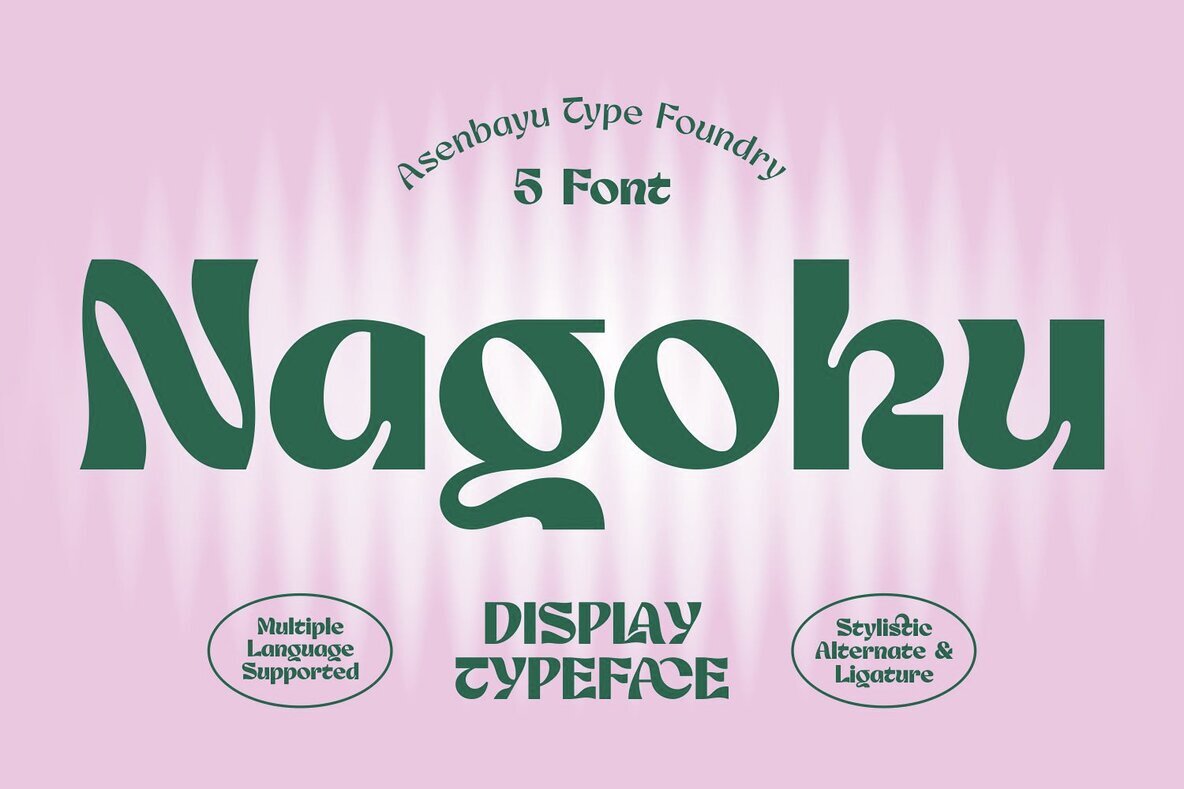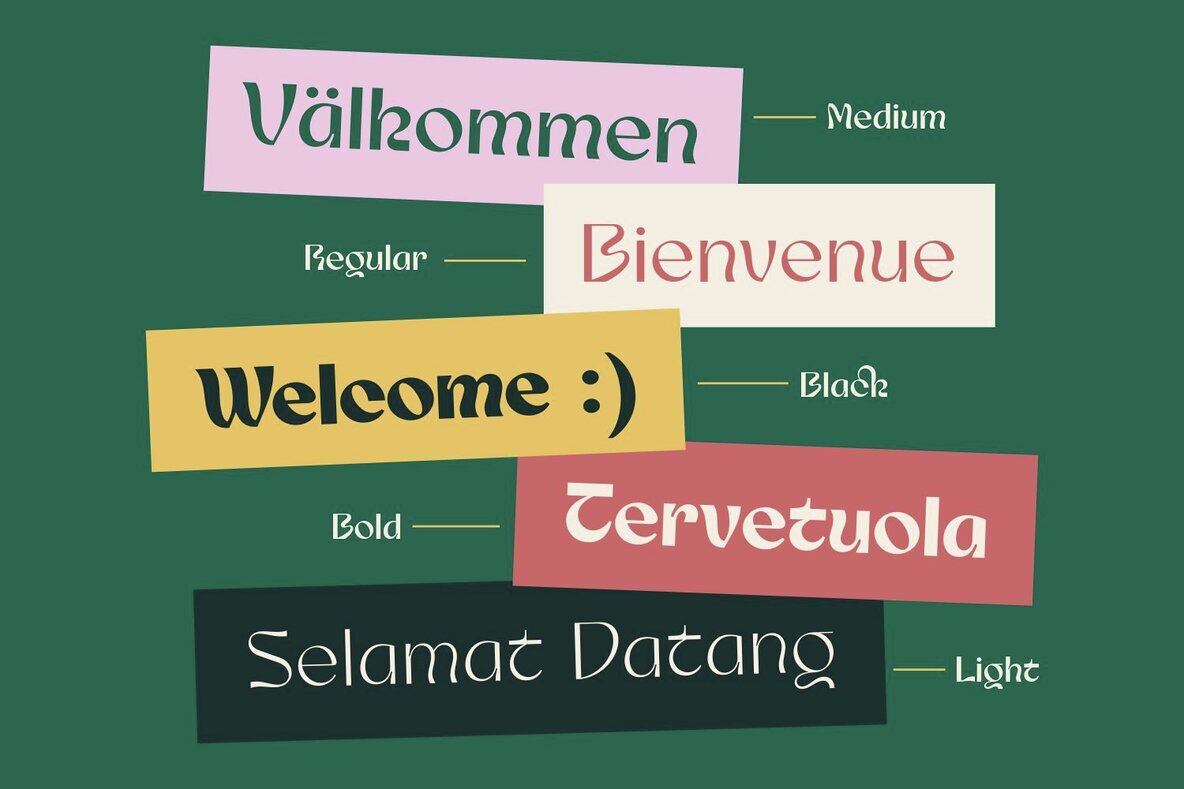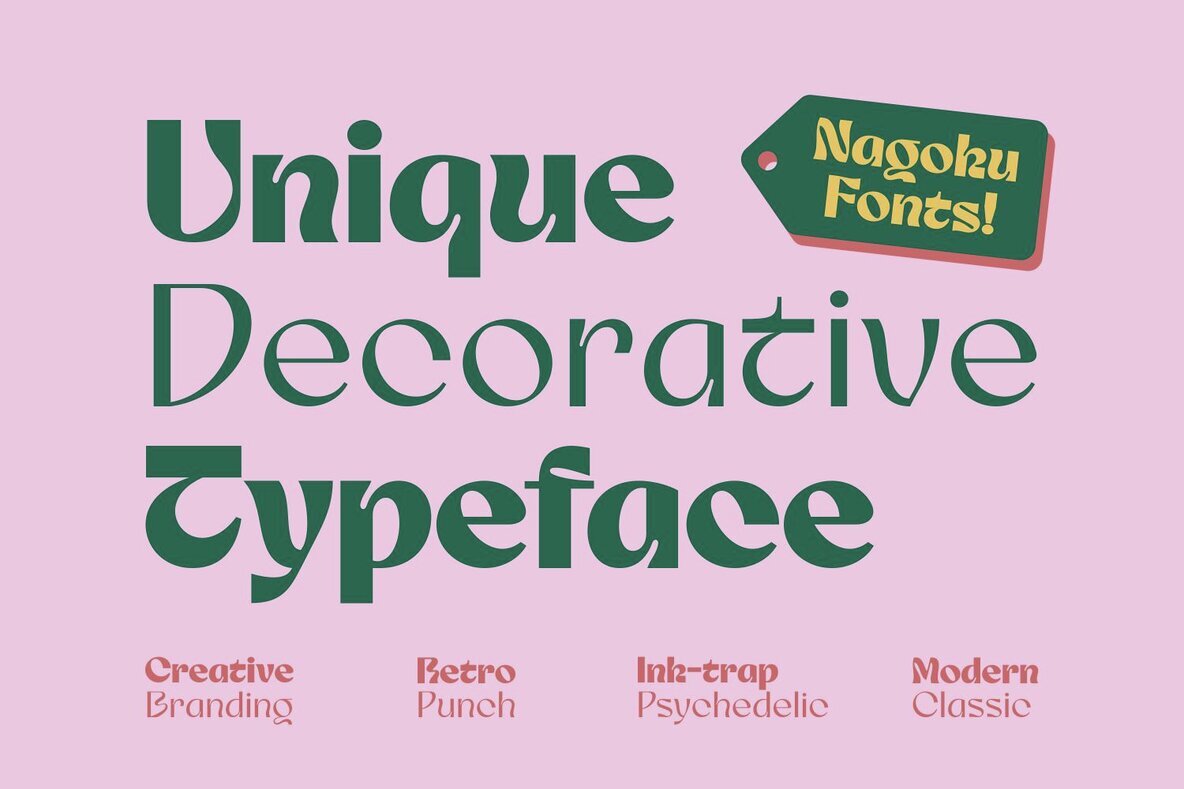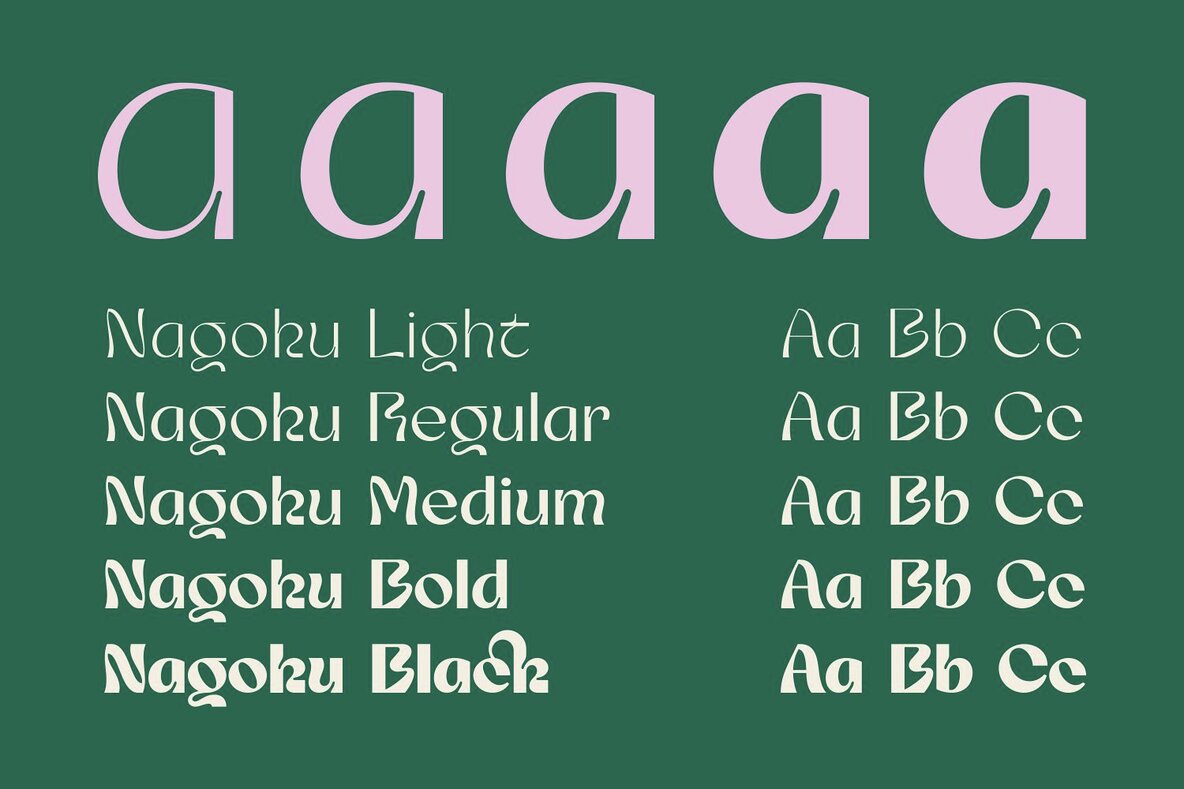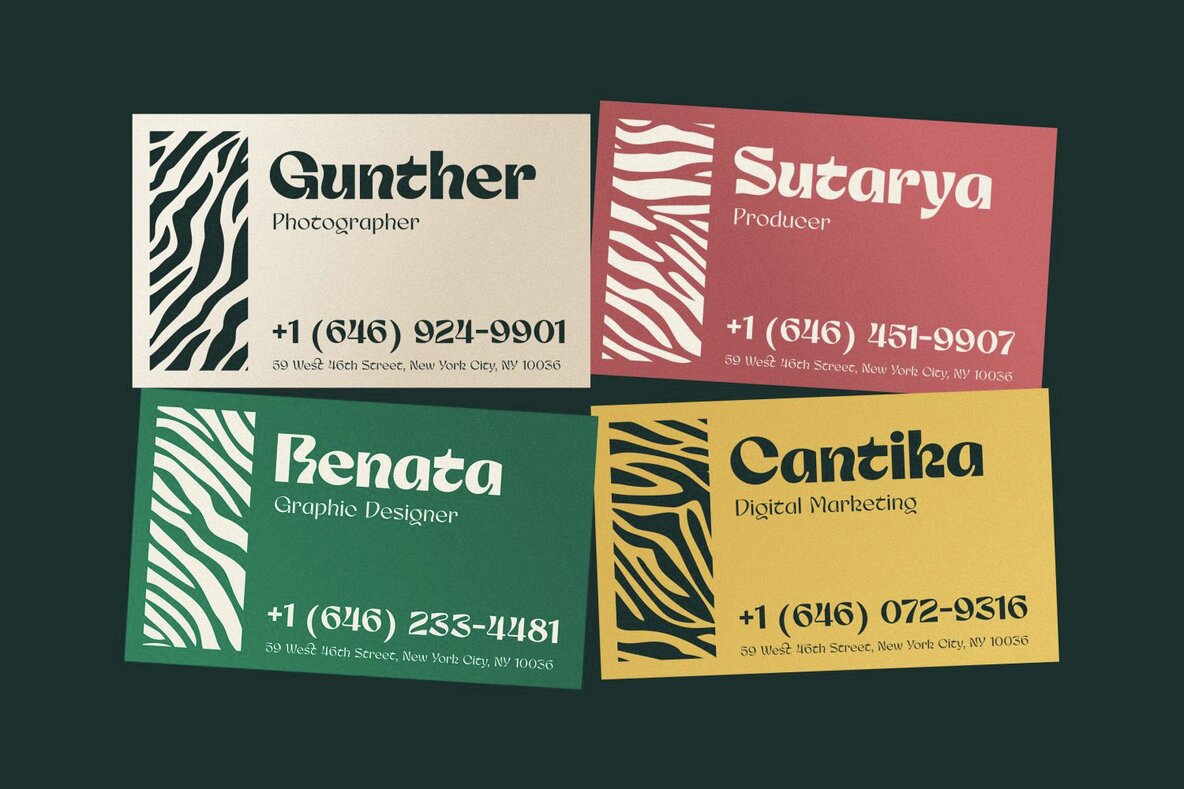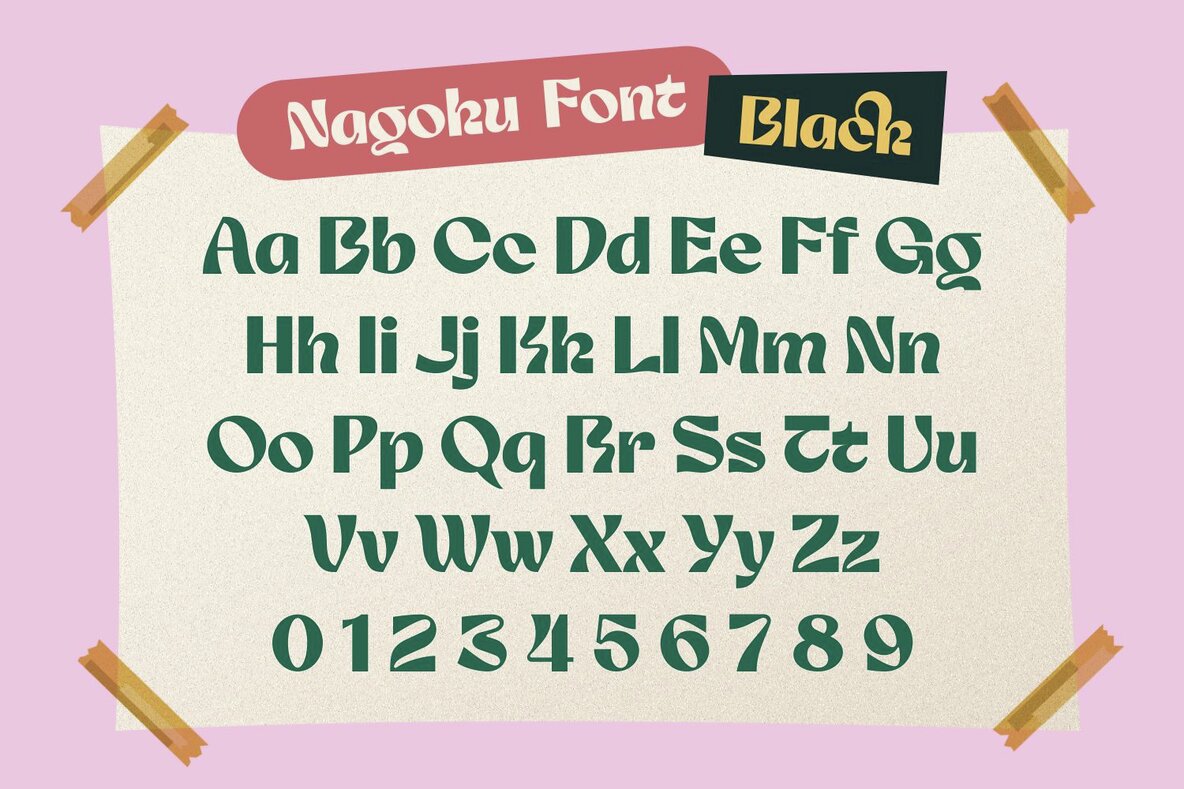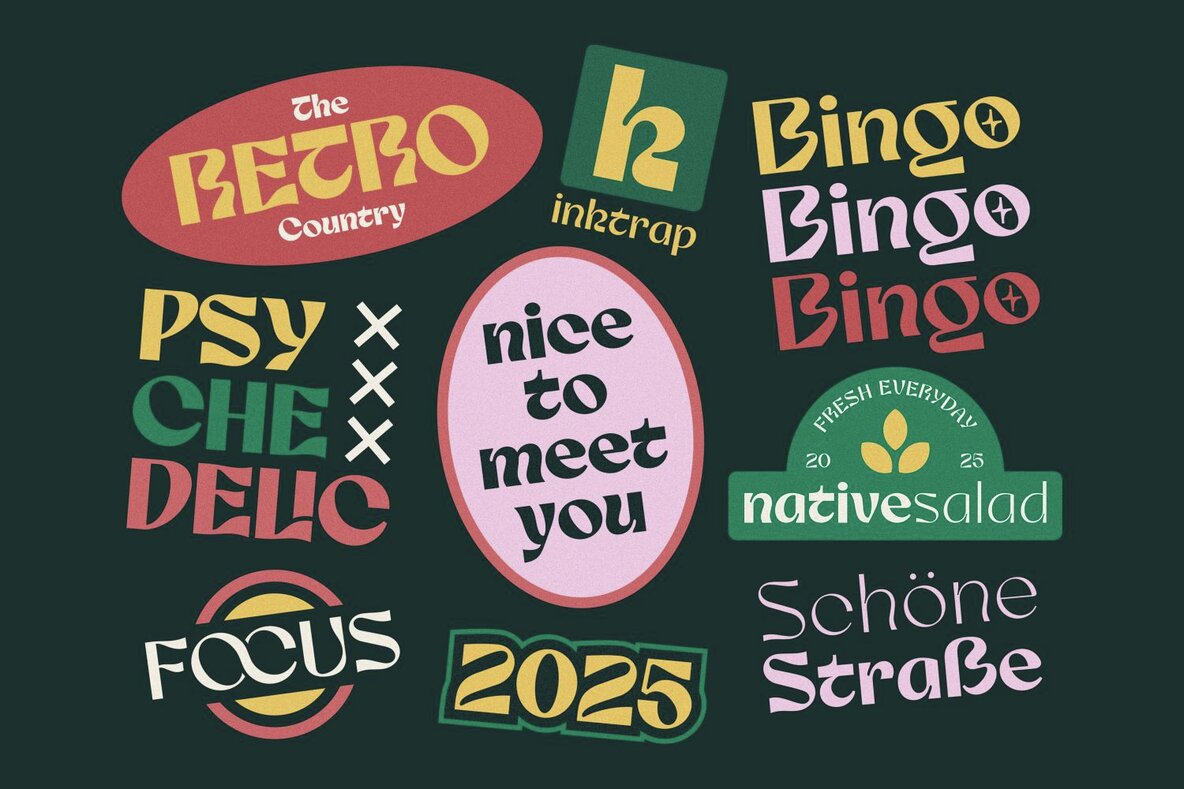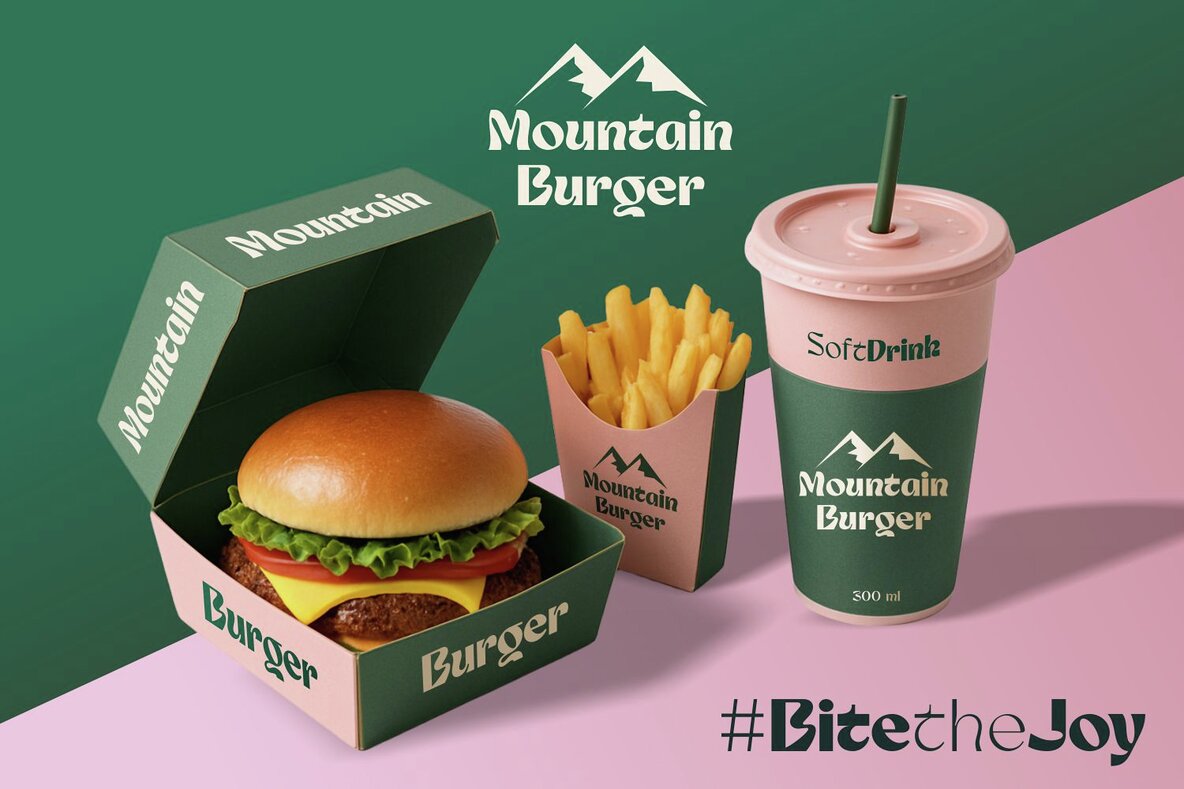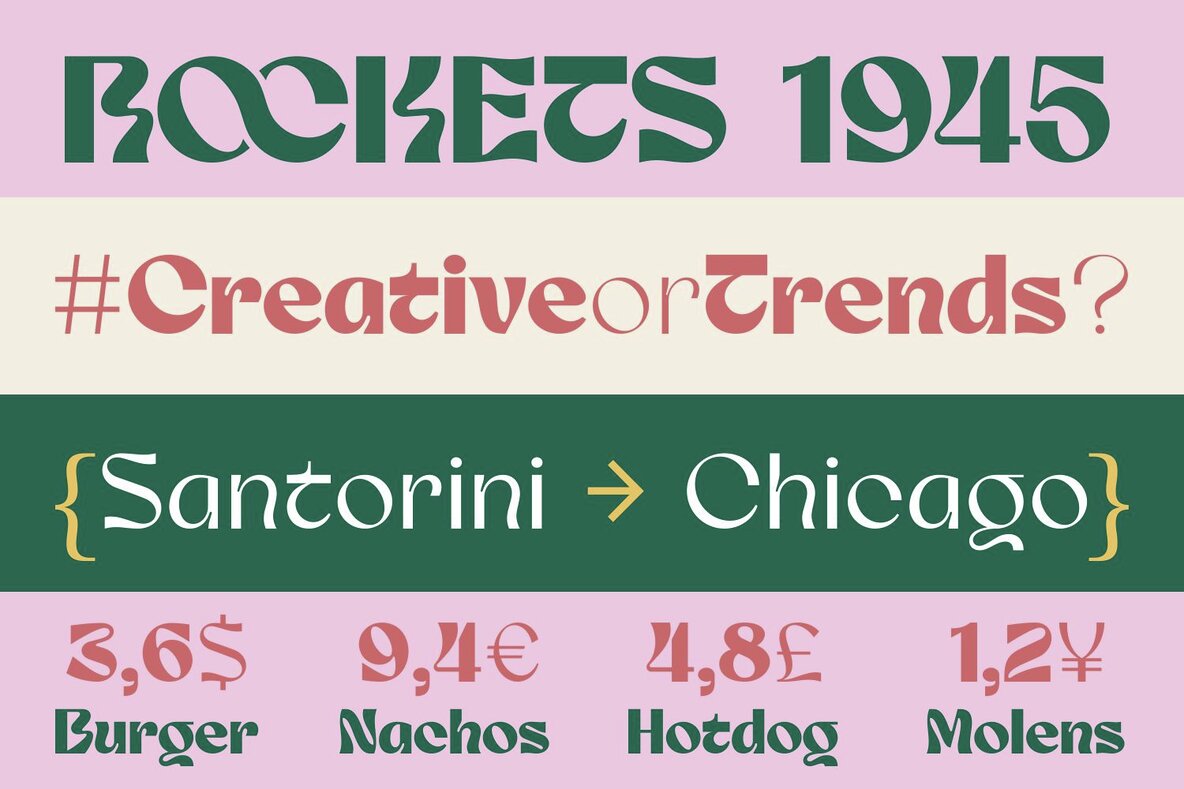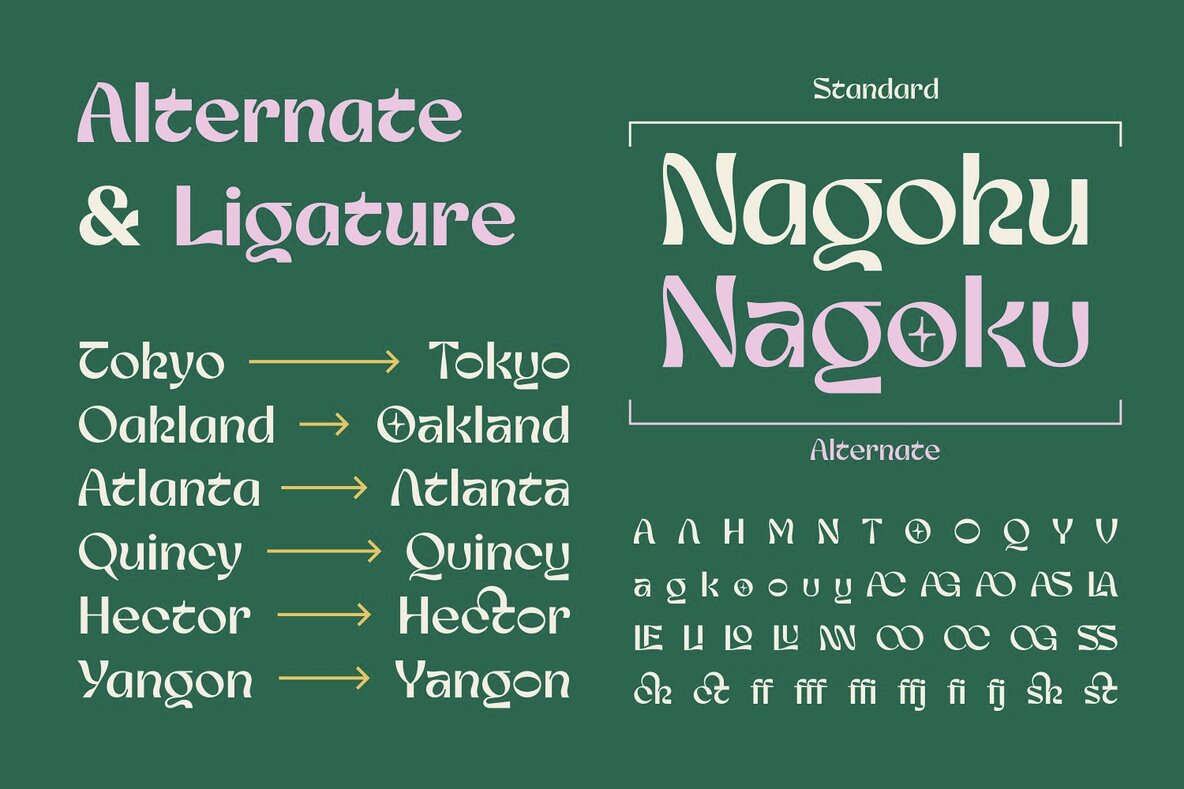
Nagoku Font
Embodying the spirit of the past with a modern twist, Nagoku serves as a decorative display font that revitalizes the core elements of retro design. Soft inktrap details combine with smooth geometric shapes to craft a distinctive rhythm that infuses each letterform with a unique expressive flow. Taking cues from the evocative poster typography of the '60s and '70s, Nagoku bridges the nostalgic charm of yesteryear with the aesthetic sensibilities of today. Its inktrap design enhances readability while imparting a tactile quality, making Nagoku an ideal choice for both digital and print media. Perfectly suited for logos, headlines, packaging, and editorial art, this typeface demands attention and creativity.Nagoku: A Decorative Display Font with a Retro Touch